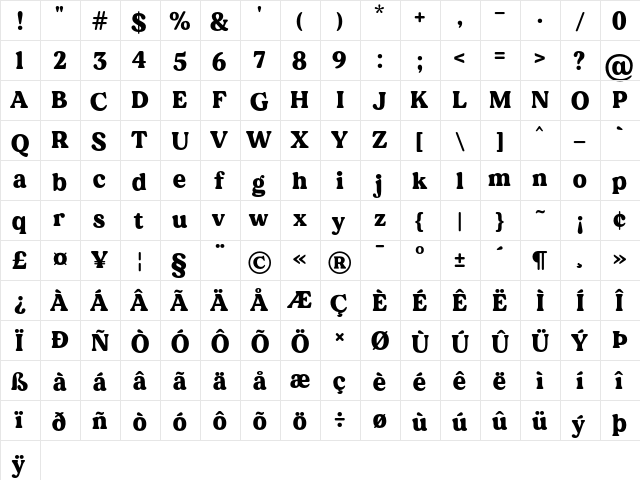
MADE Dillan Regular
| Foundry | MadeType |
| Designer | MadeType |
Design Context for MADE Dillan Typeface
MADE Dillan offers clean, dependable letterforms without strong stylistic allegiance, making it a practical choice for designers who need flexibility.
Pro Tip: Pair MADE Dillan with a font of contrasting weight or personality to build a more expressive typographic hierarchy.